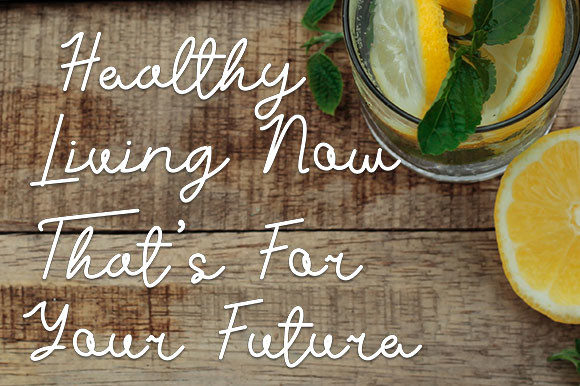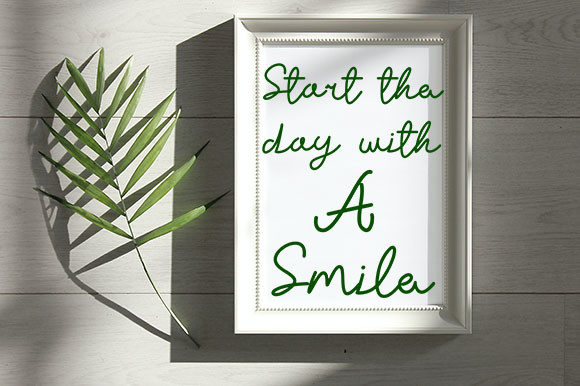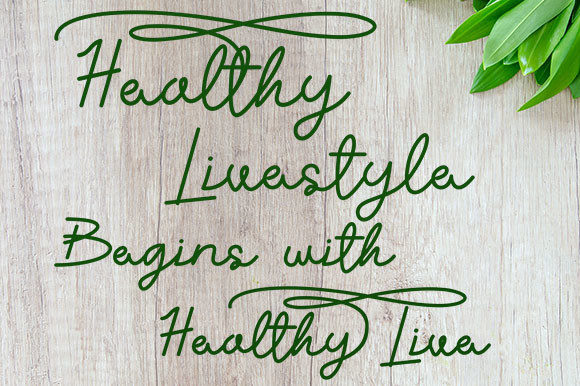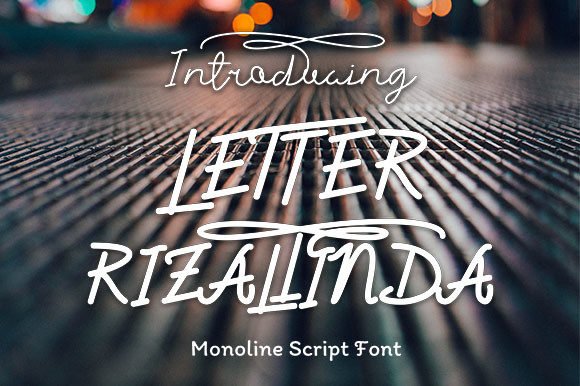
Introduction to Letter Rizallinda Font
Letter Rizallinda is a simple, urban styled handwritten font.
This font is PUA encoded which means you can access all of the glyphs and swashes with ease Add it confidently to your projects, and you will love the results.